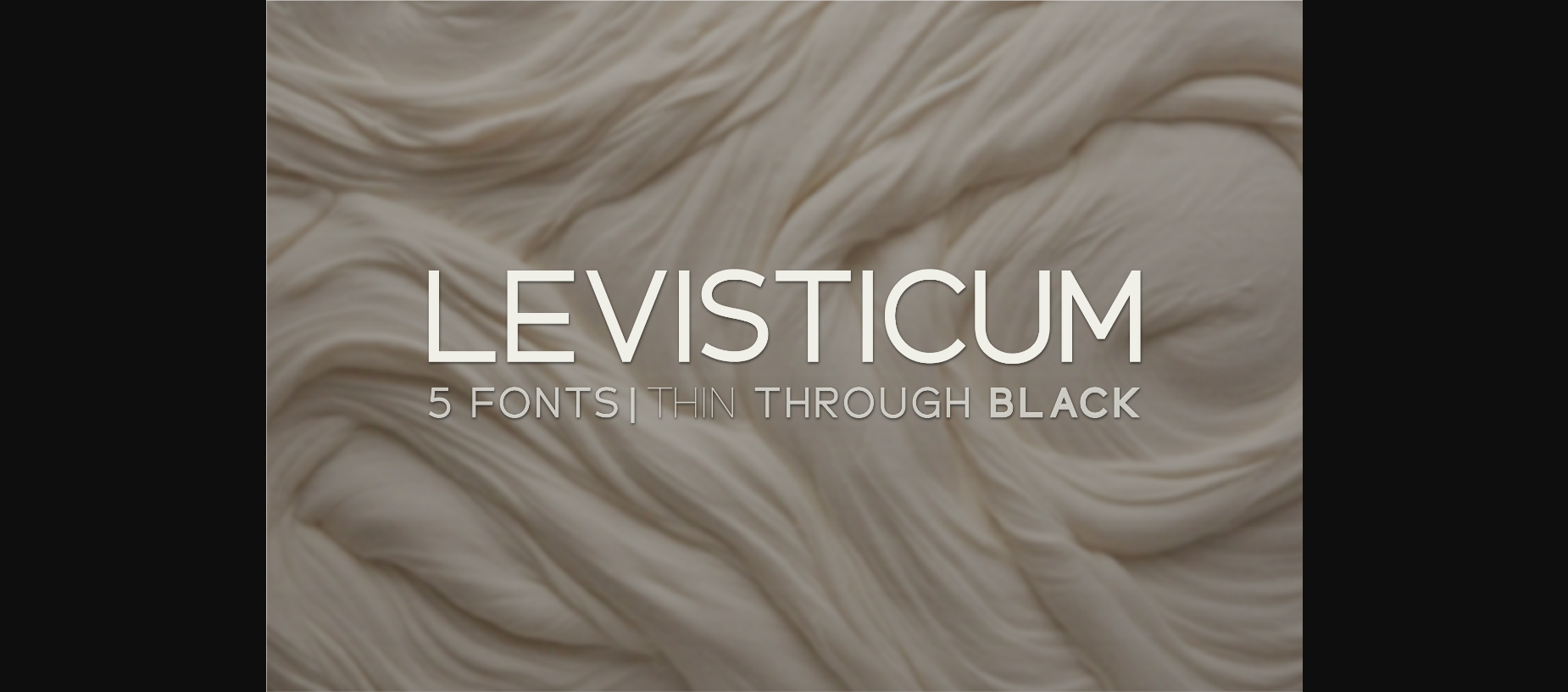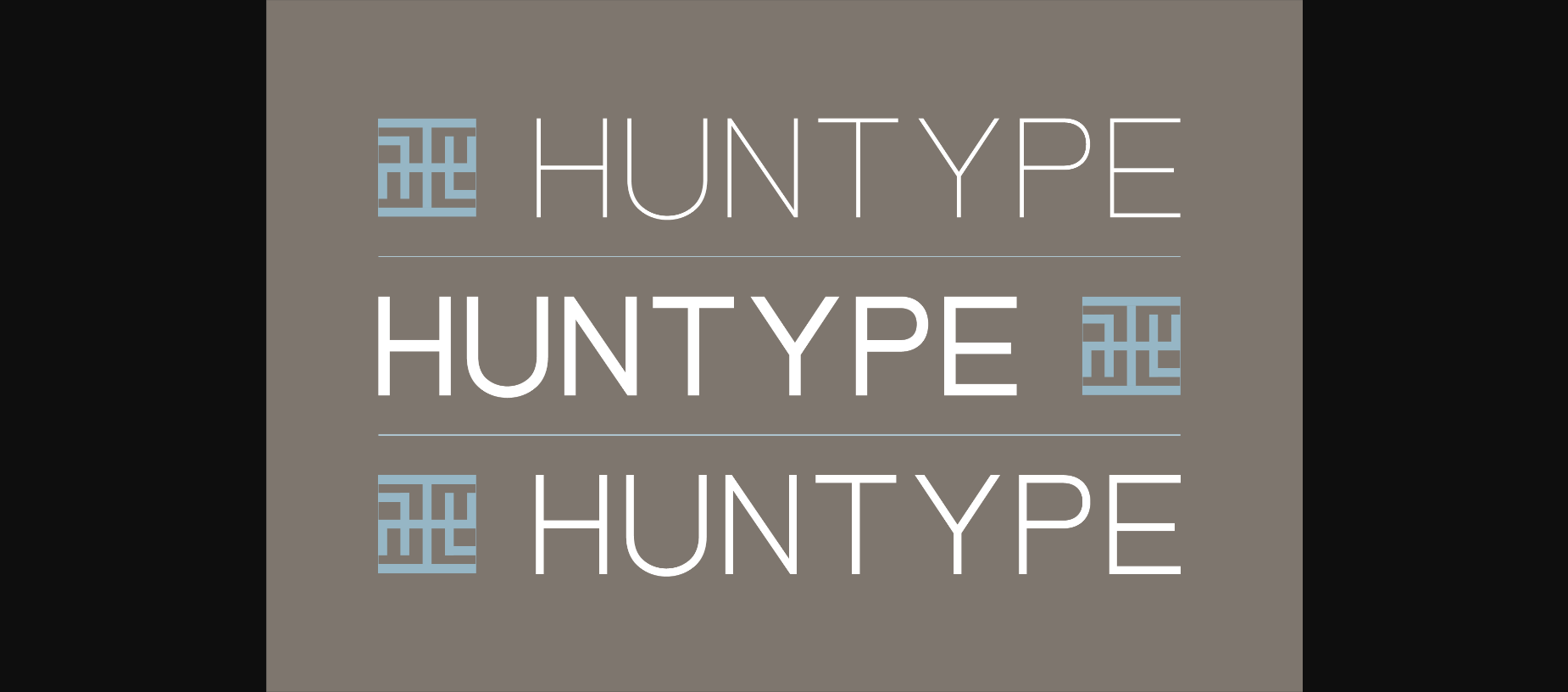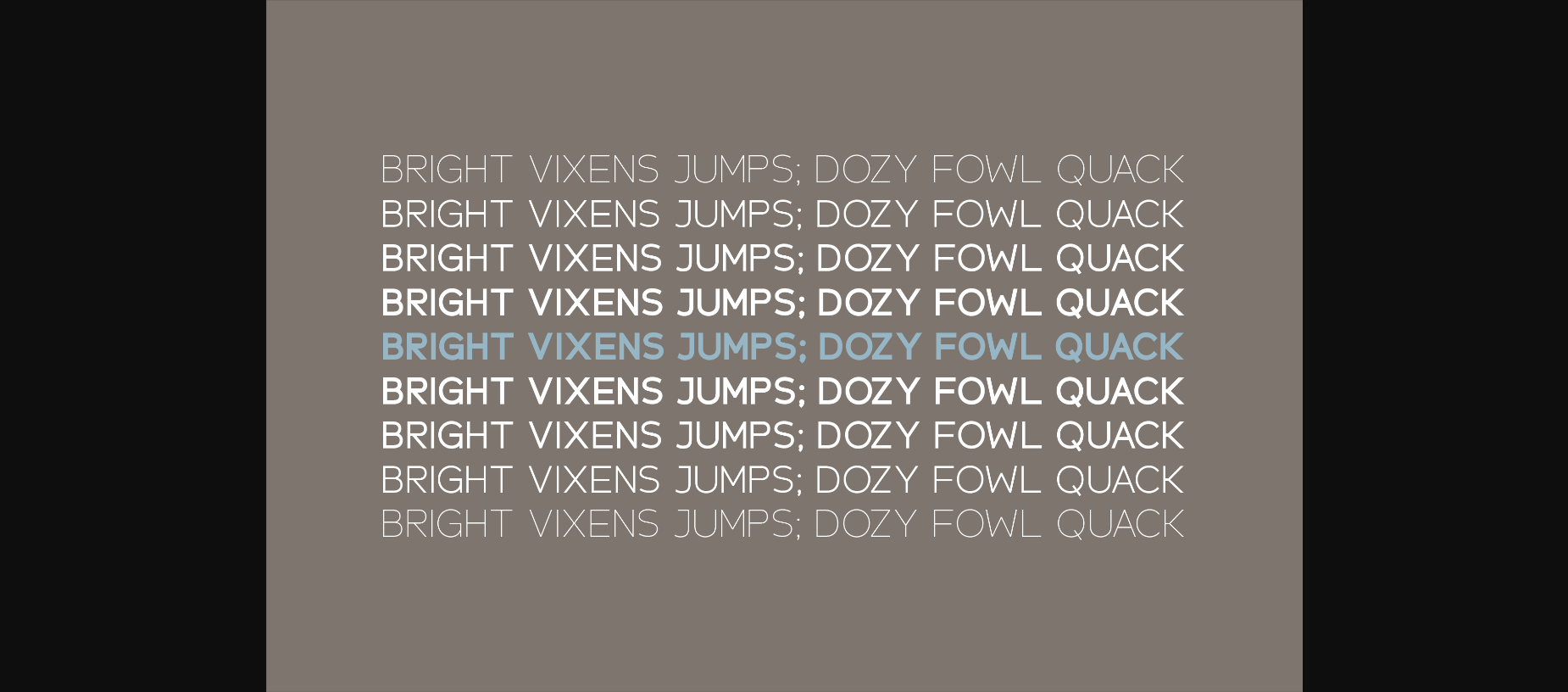
Levisticum Font
About Levisticum Font
Levisticum offers a wide range of creative possibilities, making it the perfect choice for designers and content creators. Whether you’re aiming for a subtle and delicate touch or a bold and impactful statement, this font family’s seamless blend of sophistication and contemporary style ensures your projects will shine with distinction.